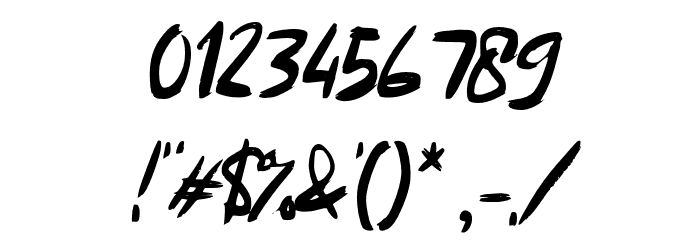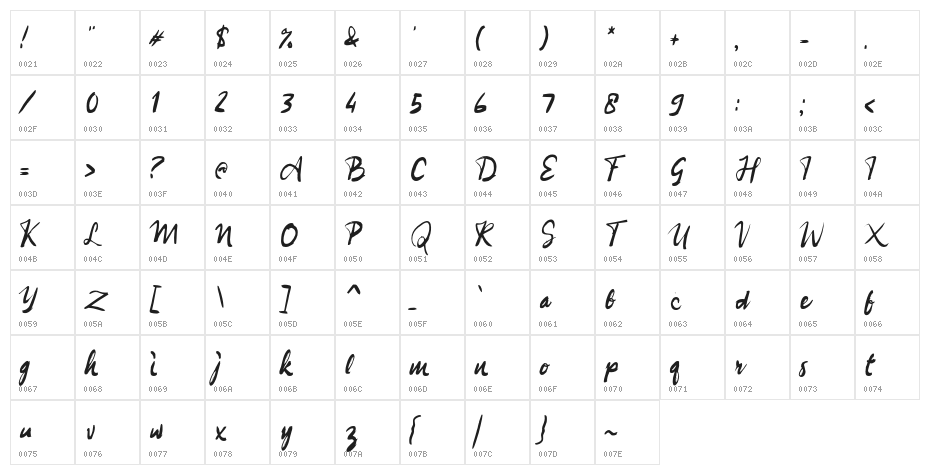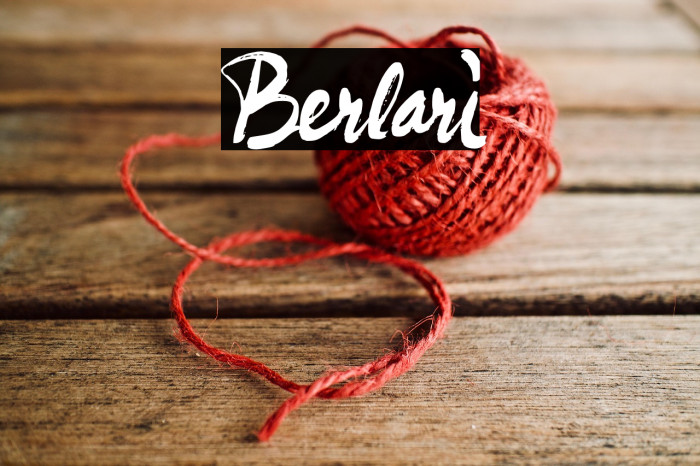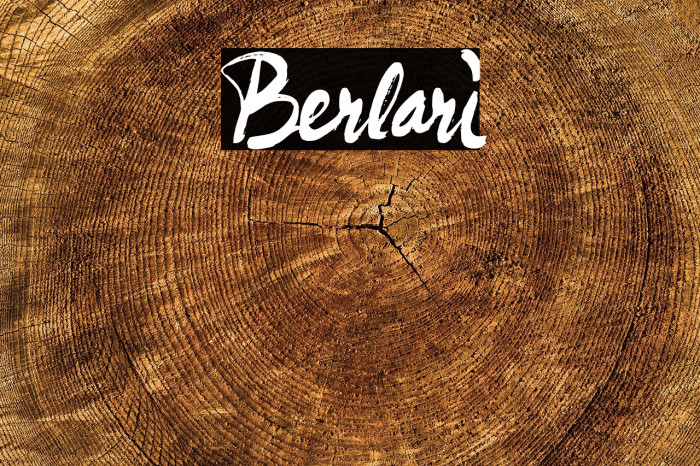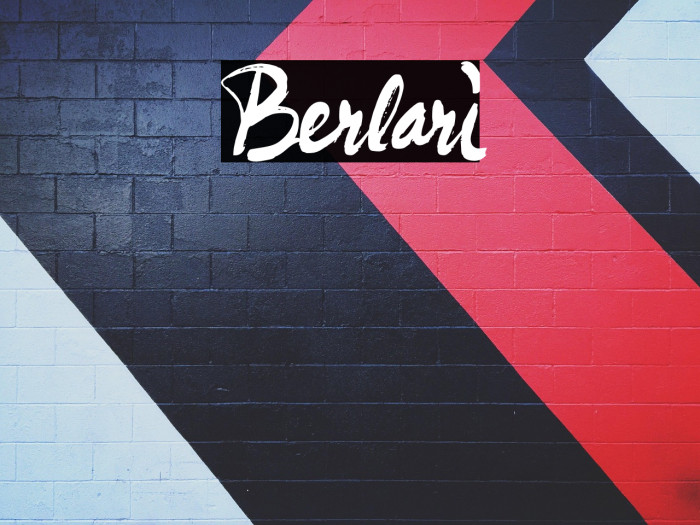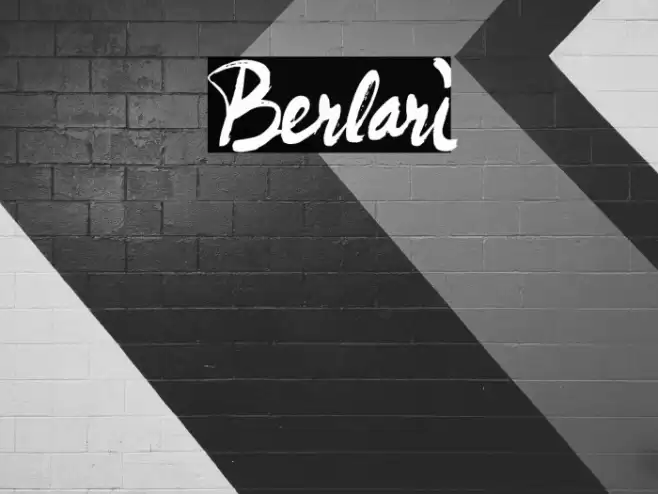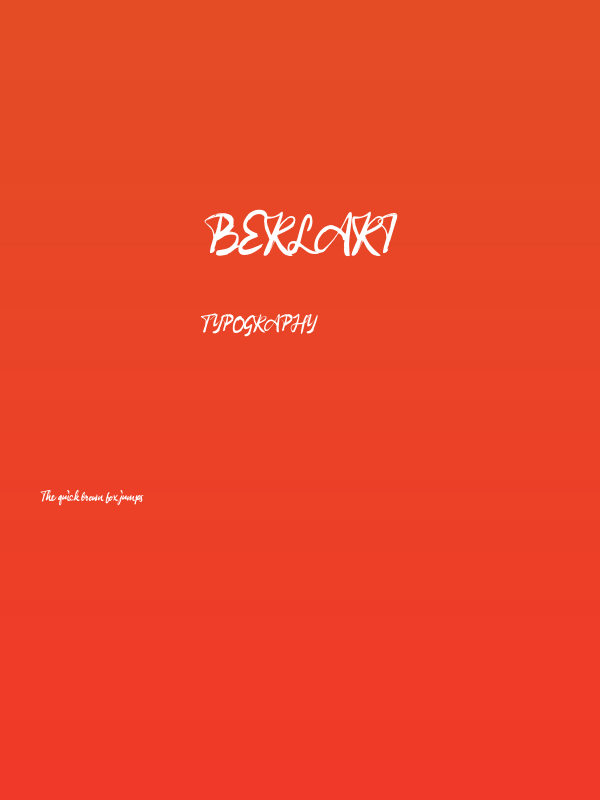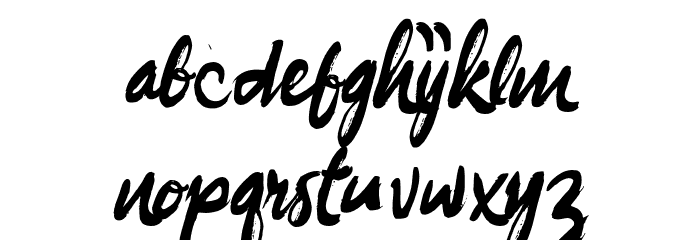
Berlari Font
Berlari Description
This font exudes a dynamic and energetic style, characterized by its bold, brush-like strokes that convey a sense of movement and fluidity. The uppercase letters are particularly striking, with a slightly slanted orientation and varying stroke widths that add to the overall expressive nature. The lowercase letters maintain this fluidity, with some characters featuring unique loops and curves that enhance the handwritten feel. Numbers and special characters are equally bold and maintain the same energetic style, making them stand out. The overall impression is one of spontaneity and creativity, making it ideal for projects that require a personal touch.